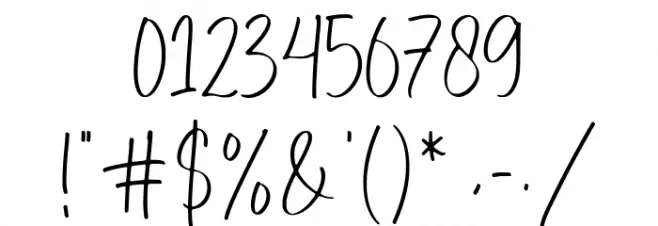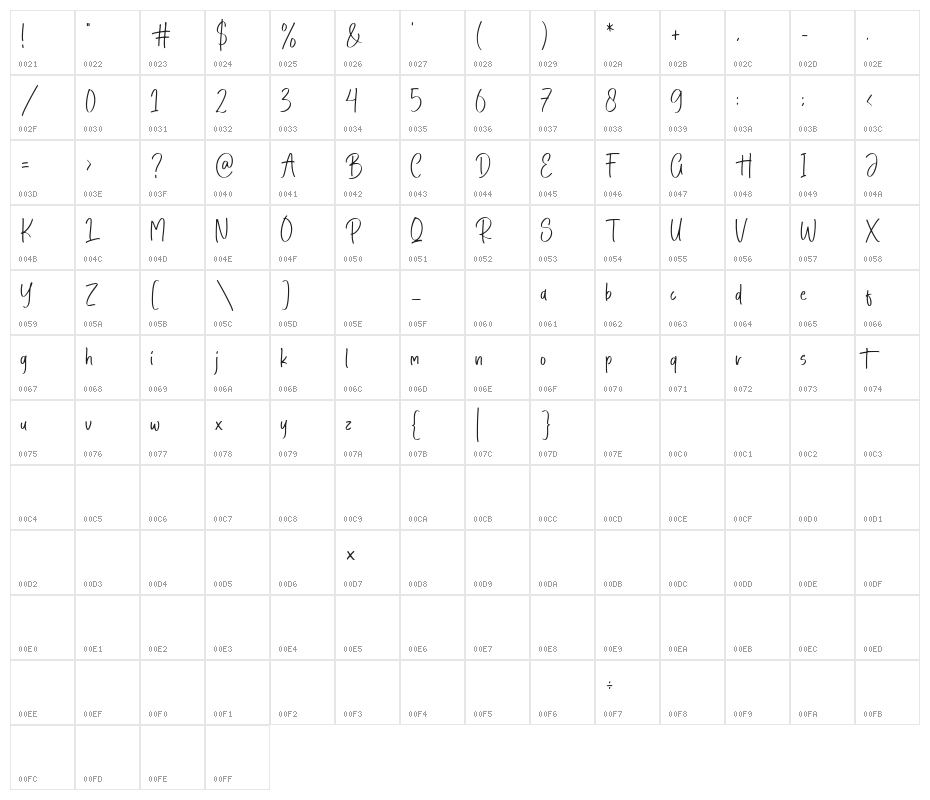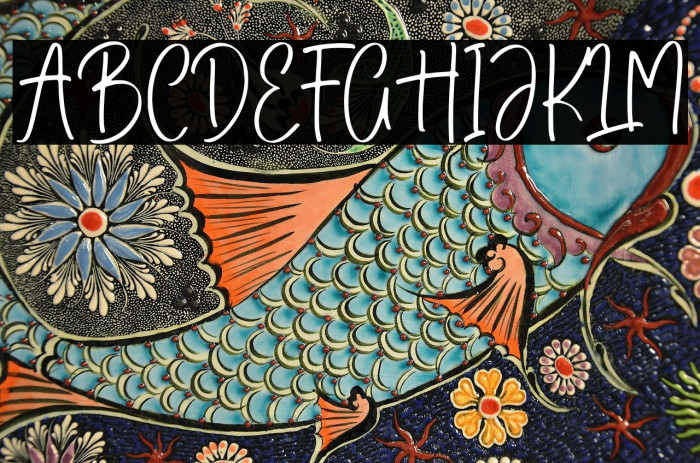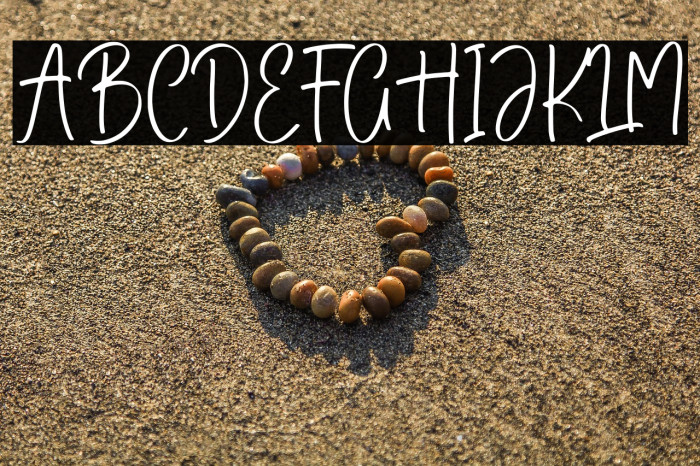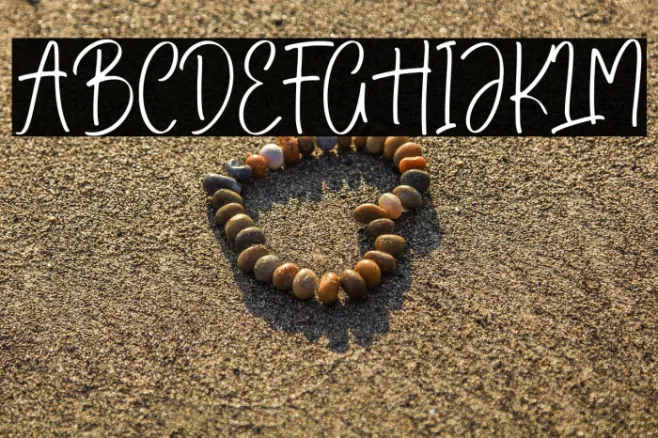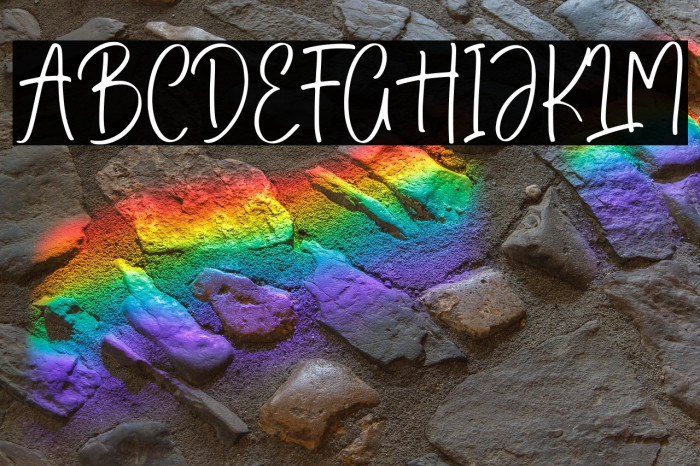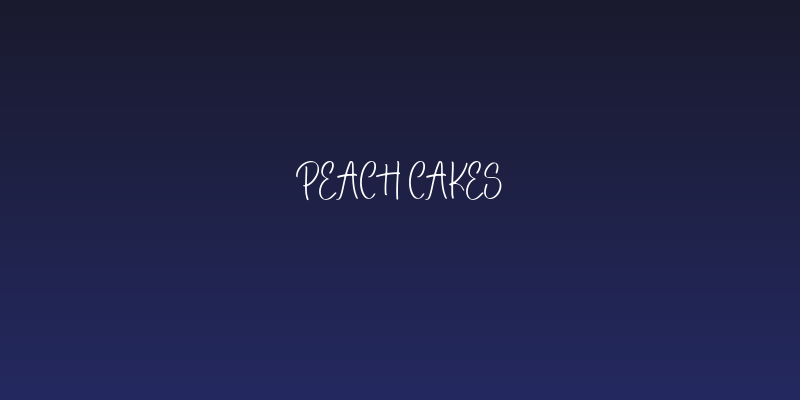
Peach Cakes Font
Peach Cakes Description
This font features a playful and casual handwritten style, characterized by its fluid and slightly irregular strokes. The uppercase letters are tall and slender, with a slight slant that adds a dynamic feel. The lowercase letters maintain a consistent flow, enhancing readability while preserving the informal aesthetic. Numbers and special characters are crafted with the same whimsical touch, making them blend seamlessly with the alphabet. The overall design is approachable and friendly, suitable for projects that require a personal and engaging tone.
Overall StyleCasual, Playful
Use CaseHeadlines, Informal text, Creative projects
Proposed ProjectsIdeal for greeting cards, invitations, personal blogs, and creative branding projects.